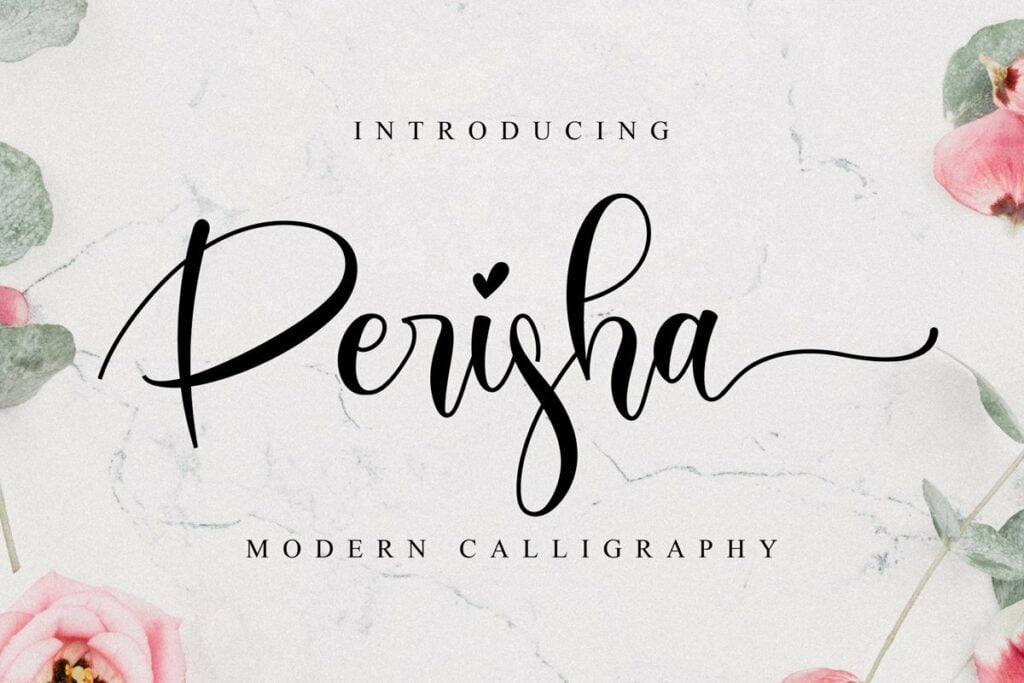
Perisha Font
Introducing the modern Perisha Calligraphy Font is a beautiful script font that has a classy, elegant, and modern look. Perisha is perfect for use in title designs such as clothing, invitations, title books, stationery designs, quotes, branding, logos, greeting cards, t-shirts, packaging designs, posters, and more.
Perisha Calligraphy Script Font